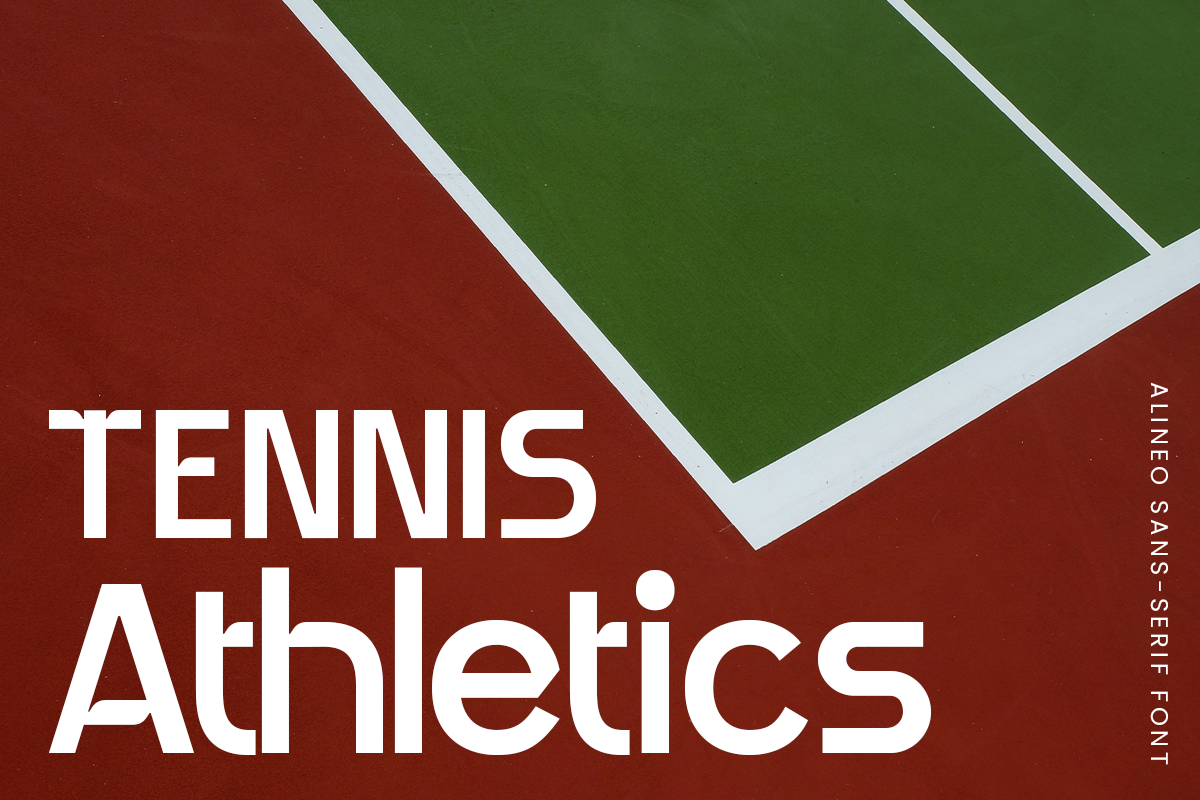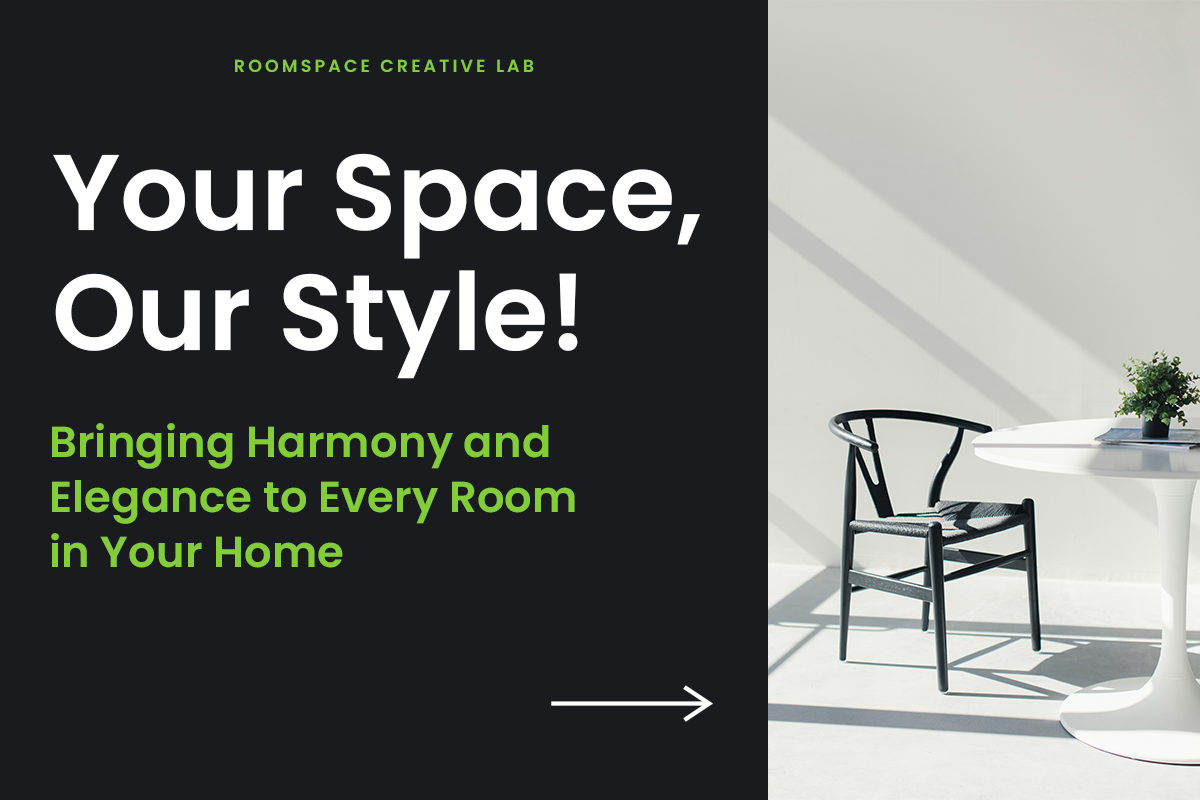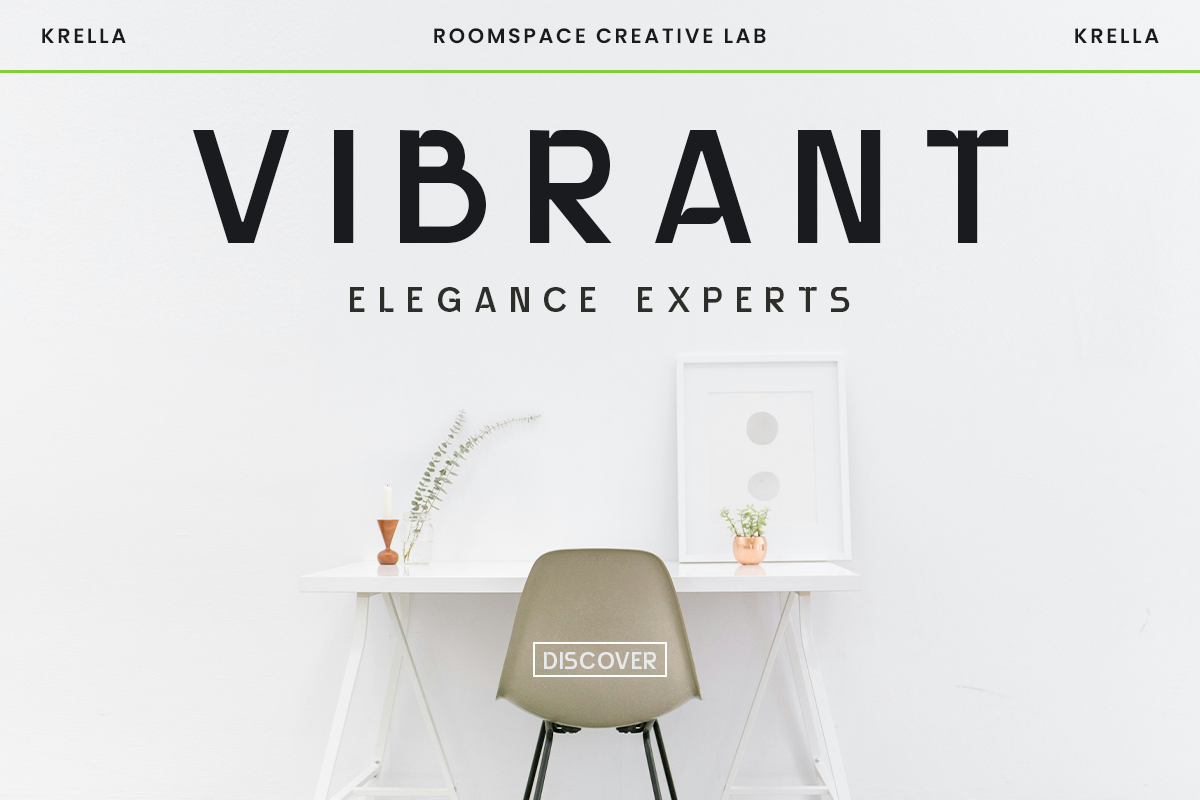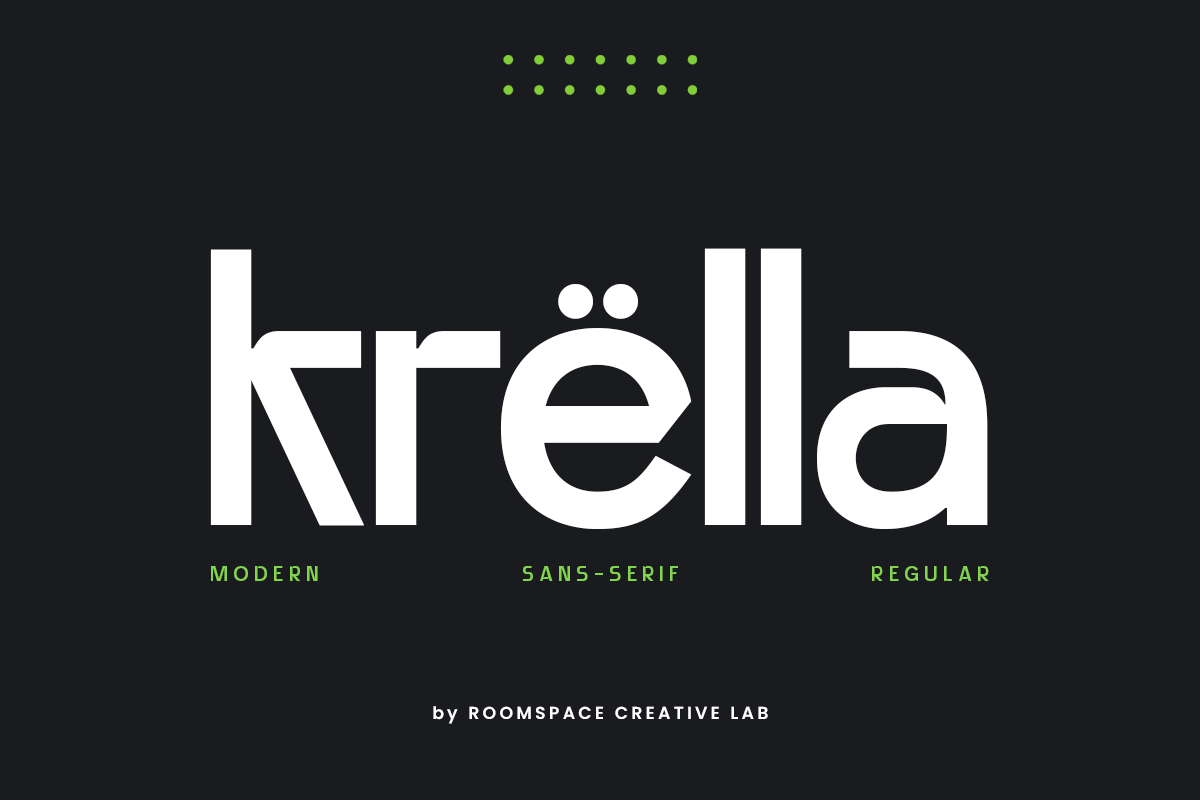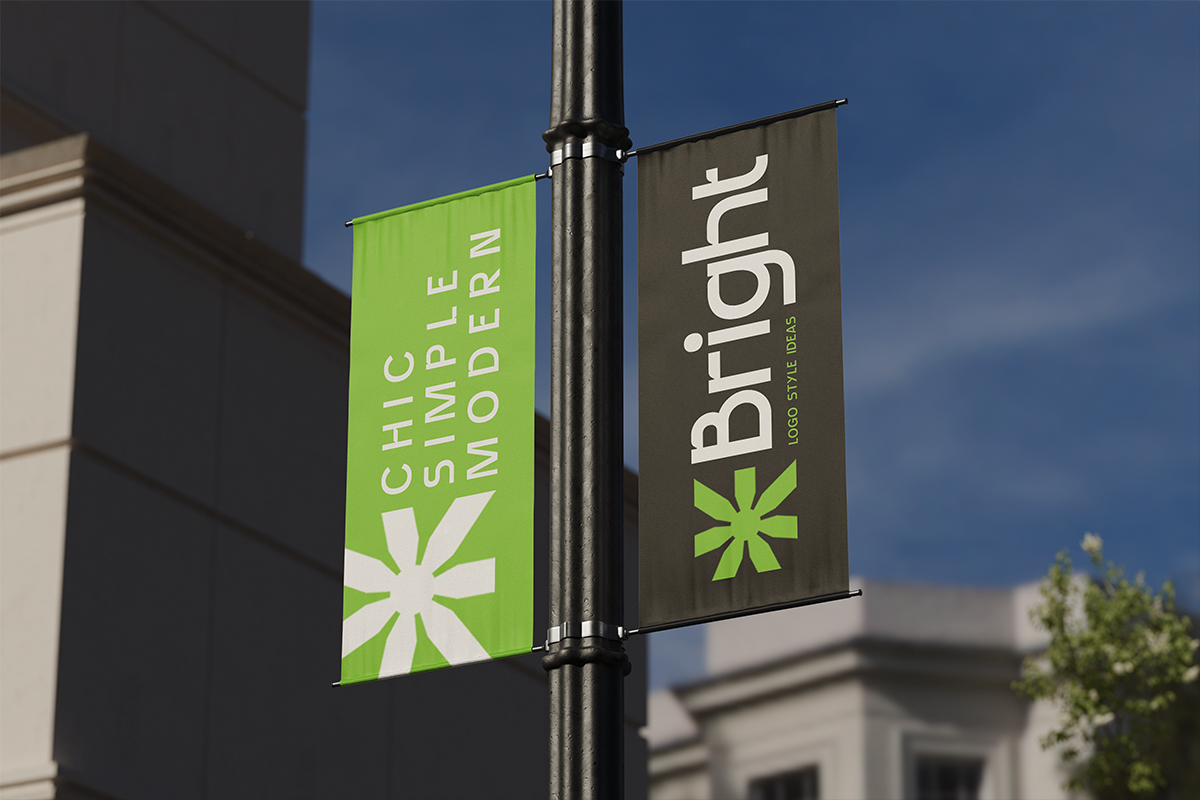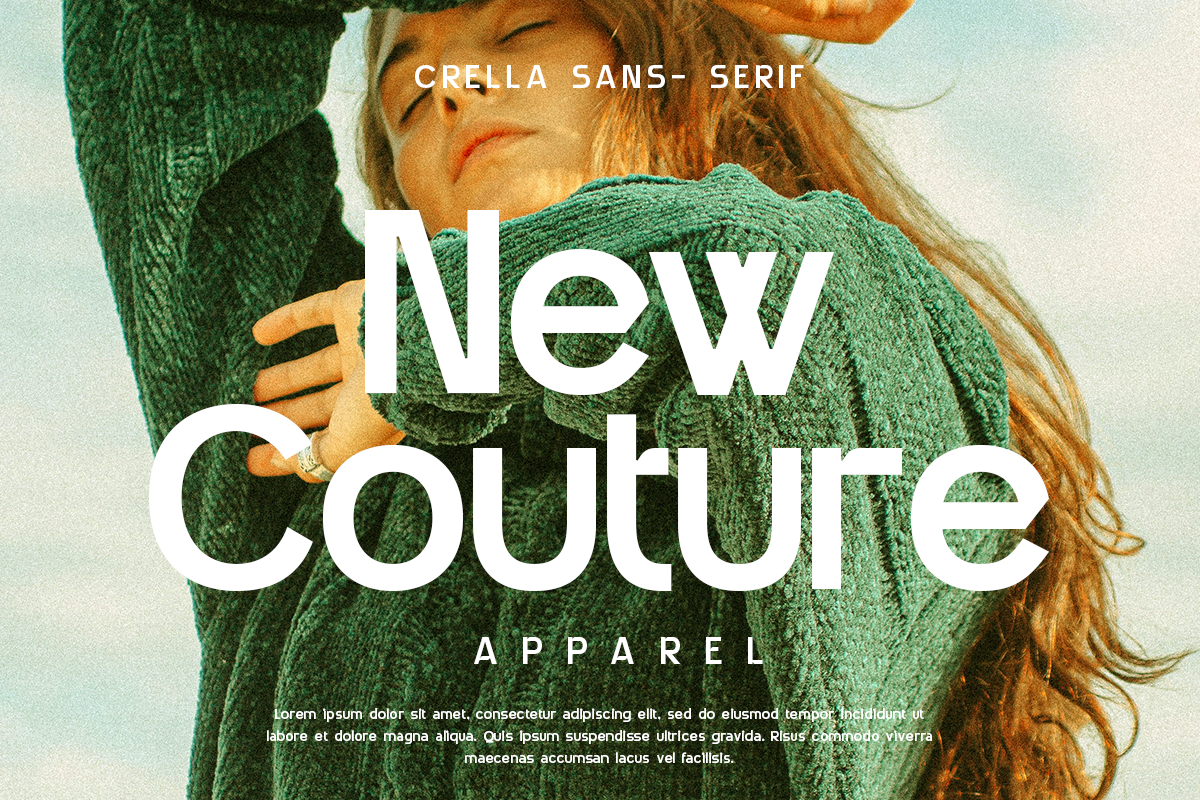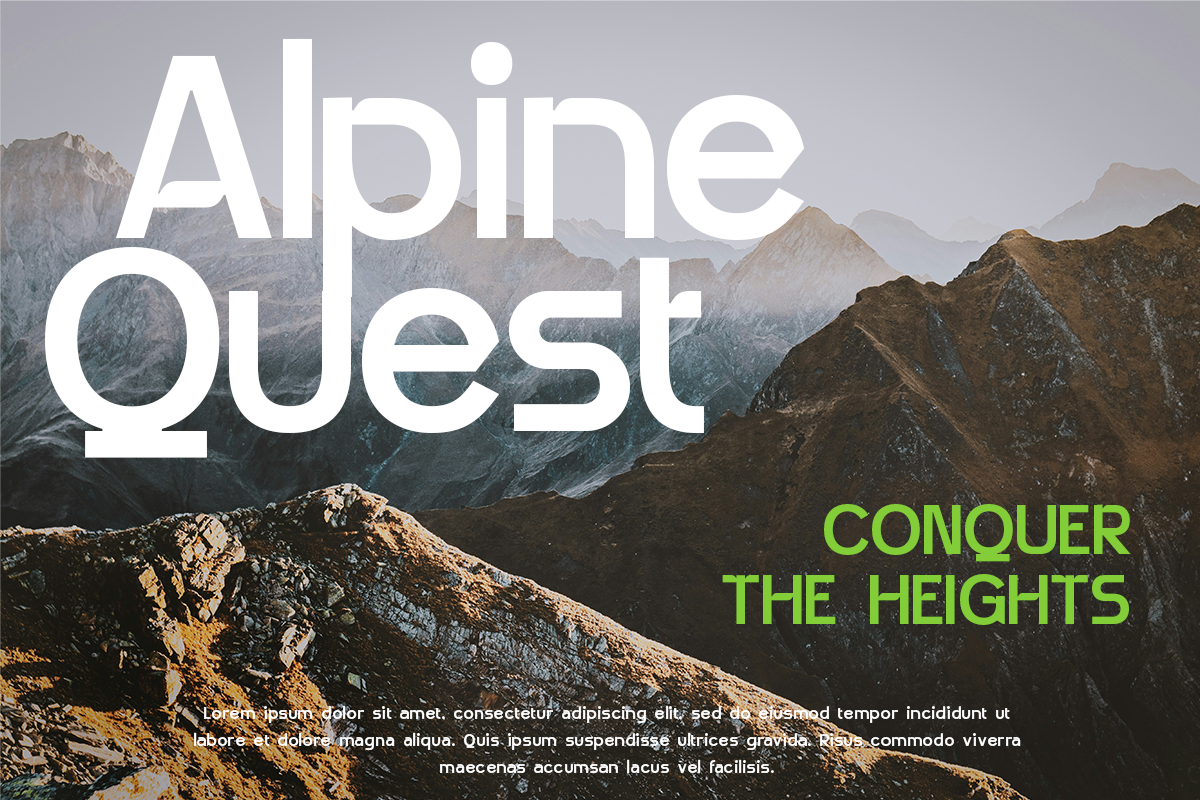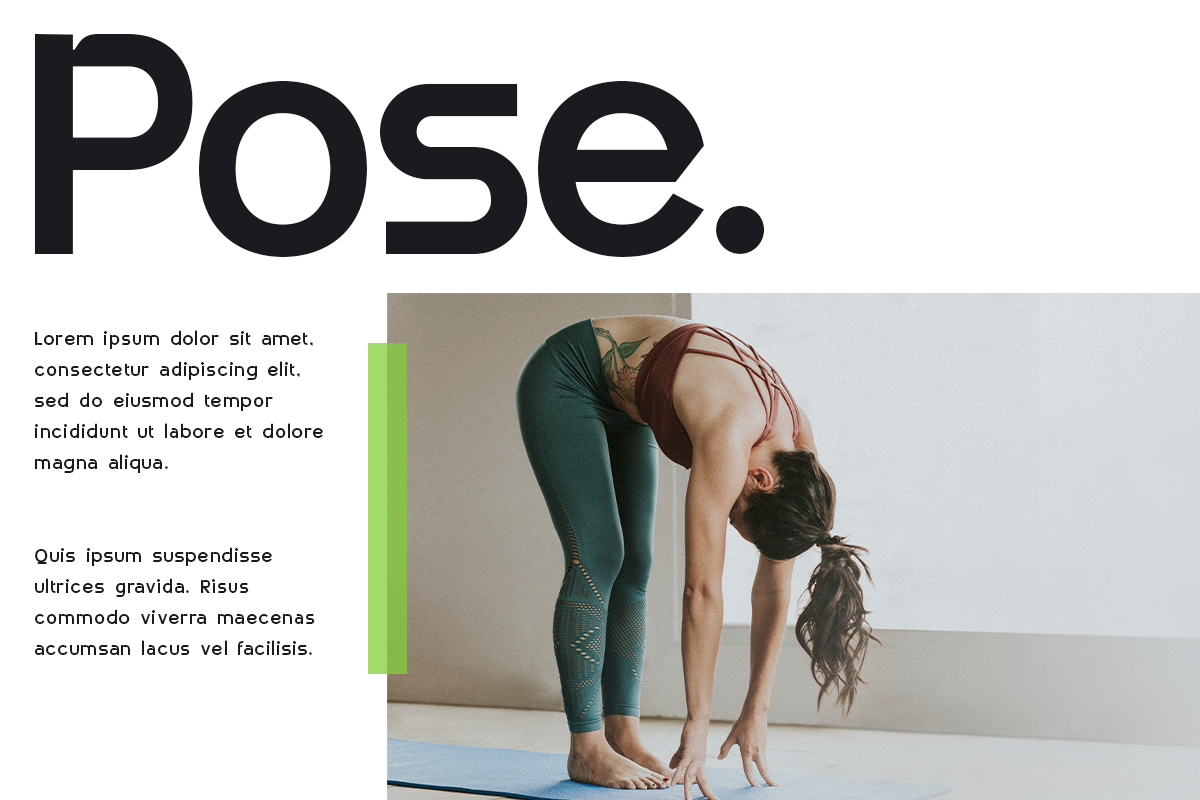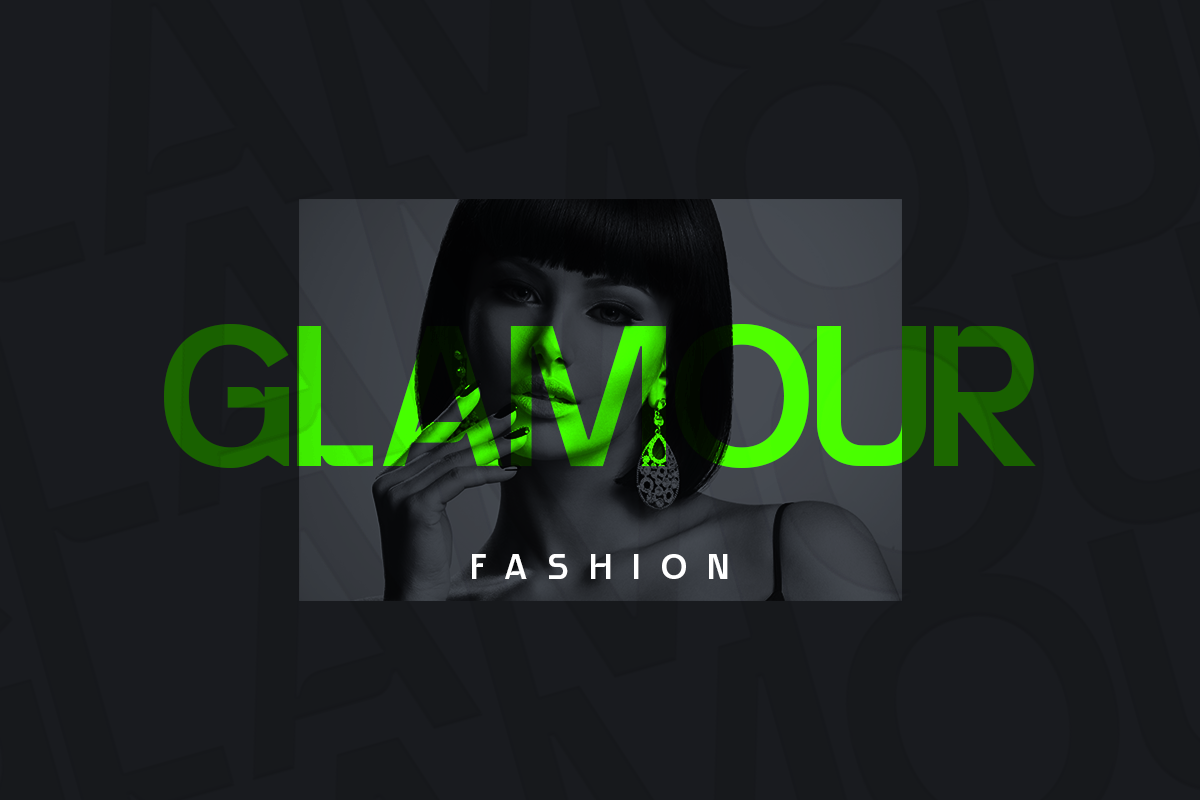
Krella - Modern Logo Font
Krella, a sleek and contemporary sans-serif font designed by Roomspace Creative Lab. Perfect for both digital and print media, Krella brings a touch of modernity to your projects with its clean lines and minimalist aesthetics. Ideal for branding, web design, posters, and more, Krella ensures readability and style in one complete package.
Krella embodies a modern, clean look that is perfect for a variety of design projects. Suitable for logos, branding, web design, posters, flyers, and more.With its clear and straightforward design, Krella ensures your text is always legible.